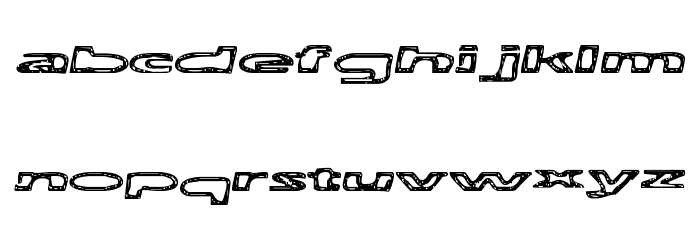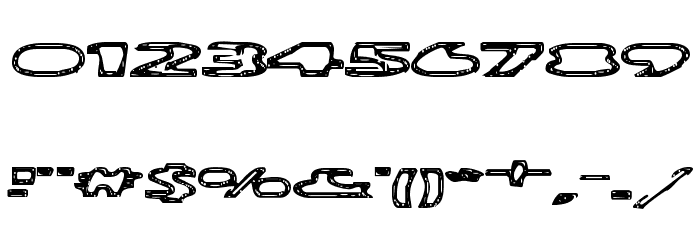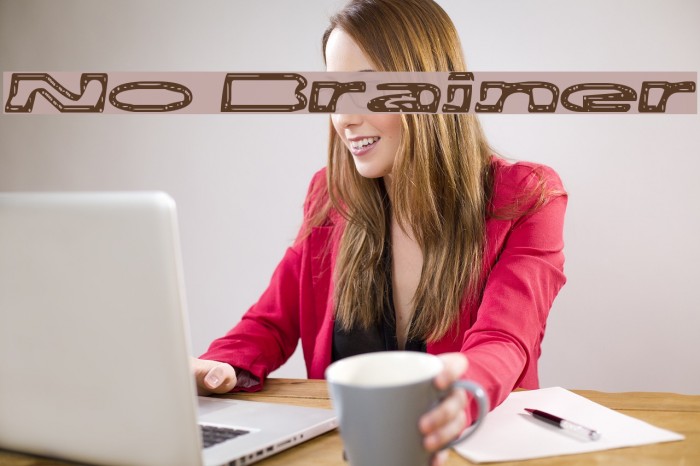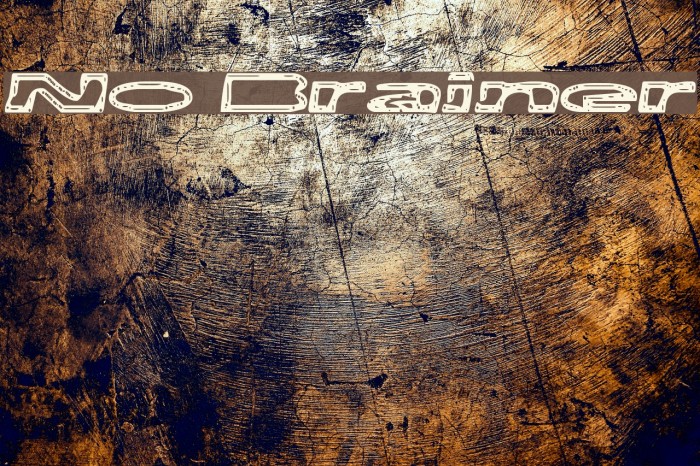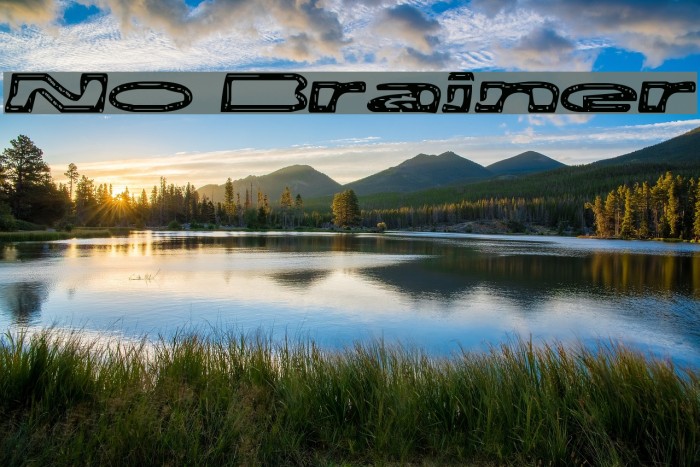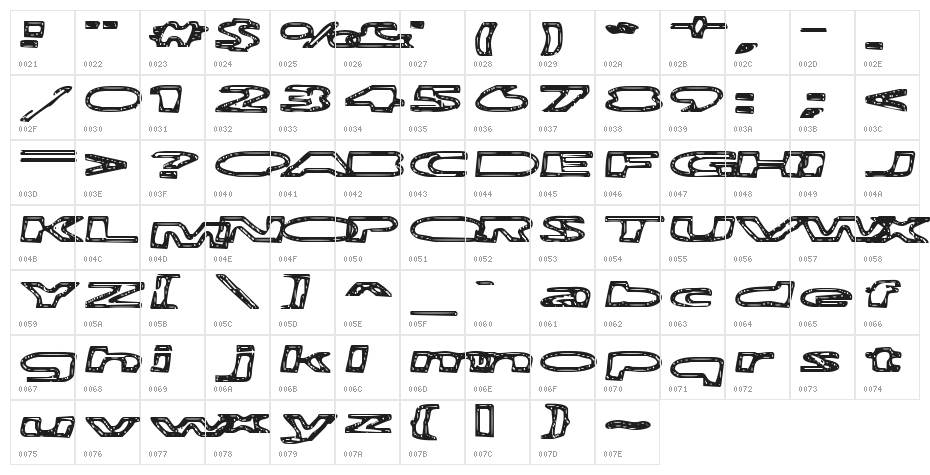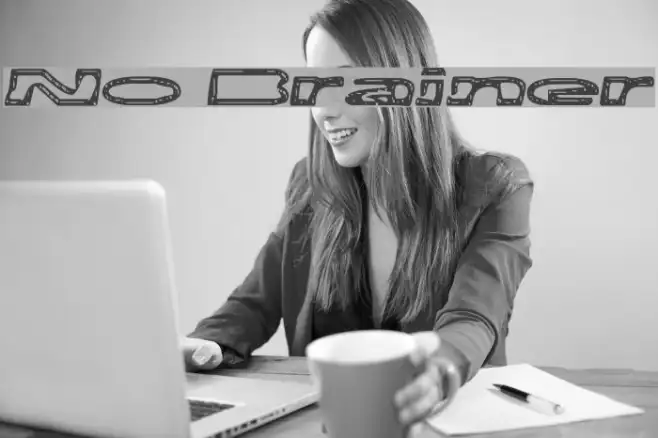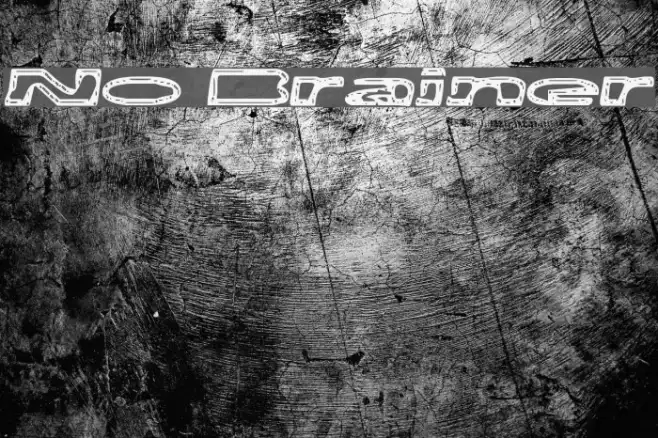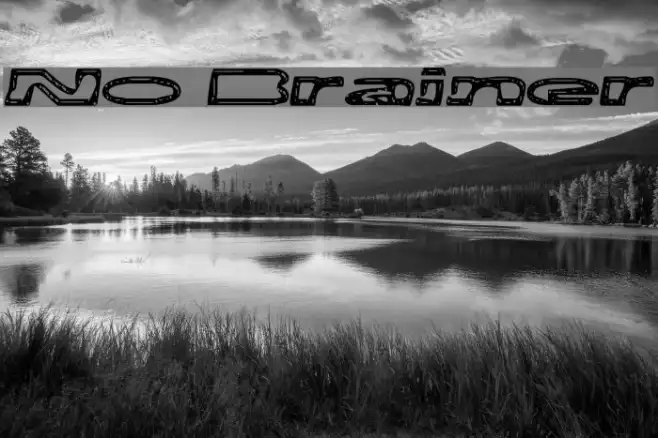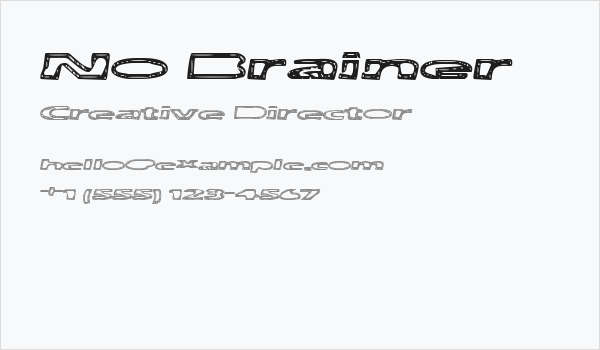
No Brainer Font
This font features a bold, futuristic design with a distinct outline style. Each character is crafted with a unique, hollow appearance, giving it a three-dimensional effect. The uppercase and lowercase letters maintain a consistent width, while the numbers and special characters follow the same stylistic approach. The font's geometric shapes and sharp angles contribute to its modern and edgy aesthetic, making it stand out in any design. Its uniformity and balance make it suitable for various creative applications.
A bold, futuristic outline font with a three-dimensional effect.
- Proposed Projects: Ideal for sci-fi themed projects, modern branding, posters, and digital artwork.